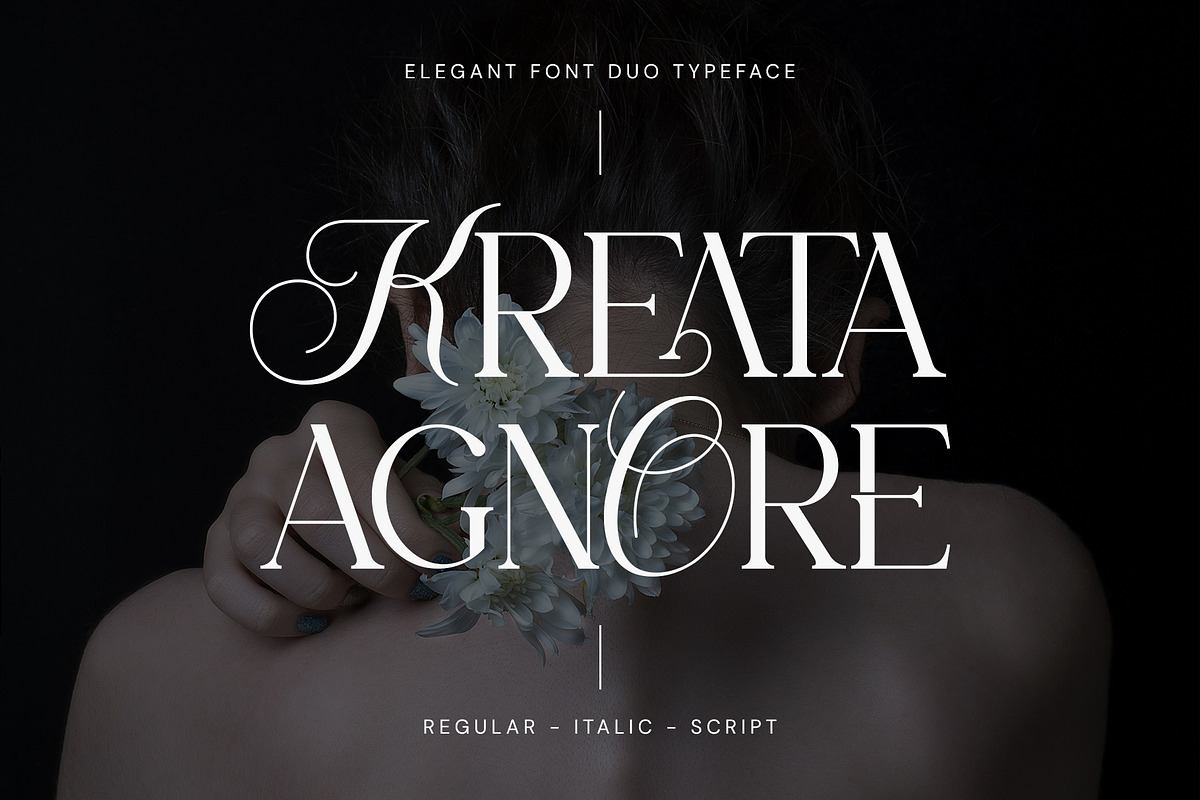
Please note that you must purchase this font for commercial use. You can download Kreata Agnore - Font Duo for free, strictly for personal testing purposes only. Kreata Agnore is a versatile font duo that combines the elegance of a serif font with the fluidity of a script font. With one font designed for headlines and titles and the other for a more handwritten, expressive feel, Kreata Agnore Font Duo Free Download is perfect for creating stylish branding, modern logos, invitations, posters, and social media content.
The font duo gives you the flexibility to mix and match, offering both sophistication and personal charm. It includes uppercase and lowercase letters, numerals, punctuation, and multilingual support for global projects.
Whether you're working on a contemporary brand identity or a creative invitation, Kreata Agnore delivers style, elegance, and a modern touch to your designs.